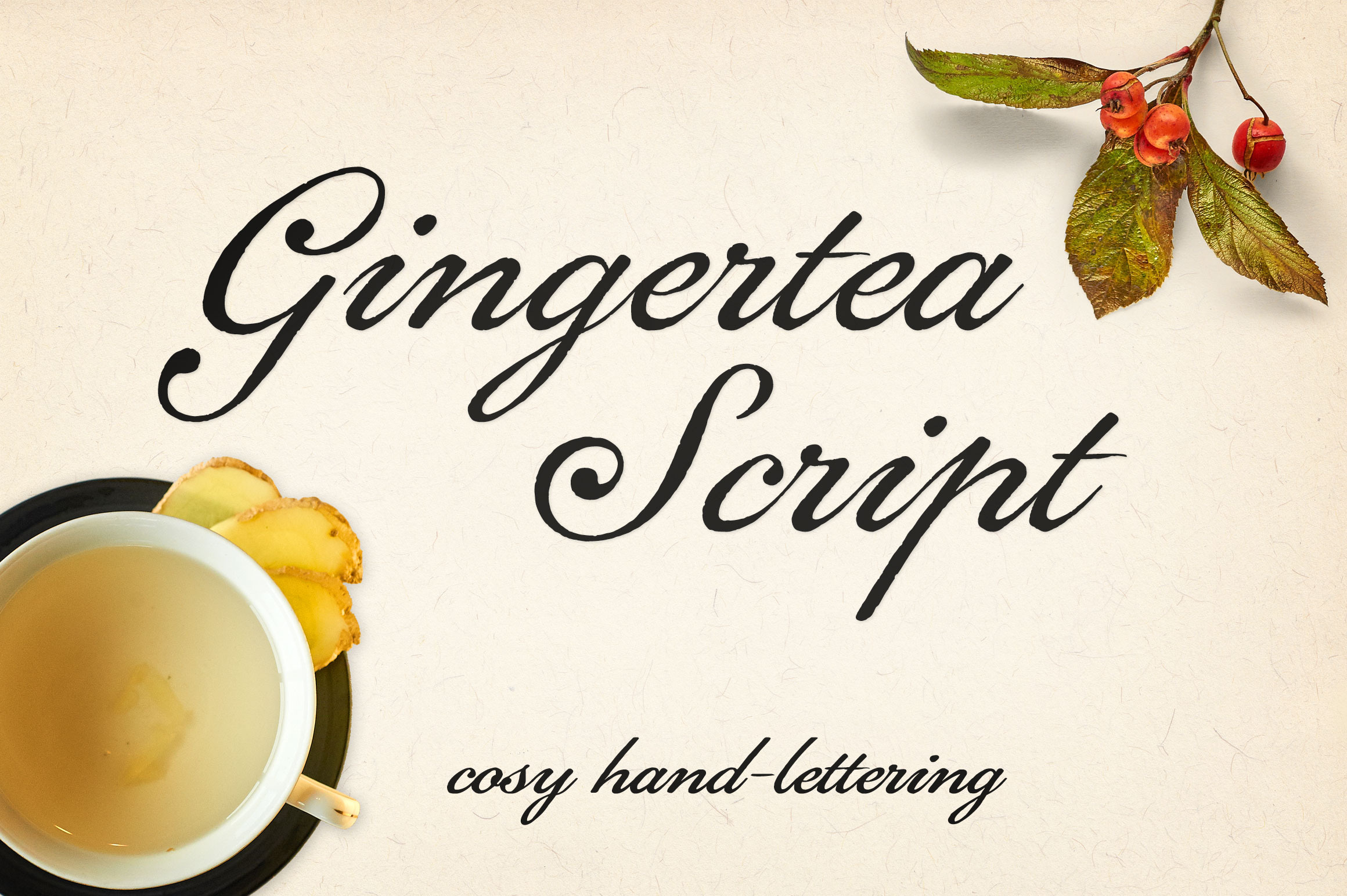
Gingertea Script Font
Hello I'm Gingertea Script - a warm and cozy calligraphic font. I want to be used for invitations, product packaging, labeling and titling.
All fonts have upper & lowercase characters, a full set of punctuation and figures.
supported languages:
English, Spanish, Portuguese, French, German, Afrikaans, Basque, Breton, Catalan, Danish, Dutch, Finnish, Irish, Italian, Norwegian, Swedish, Icelandic